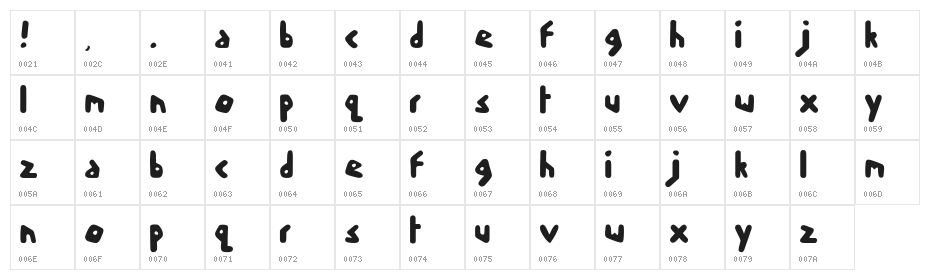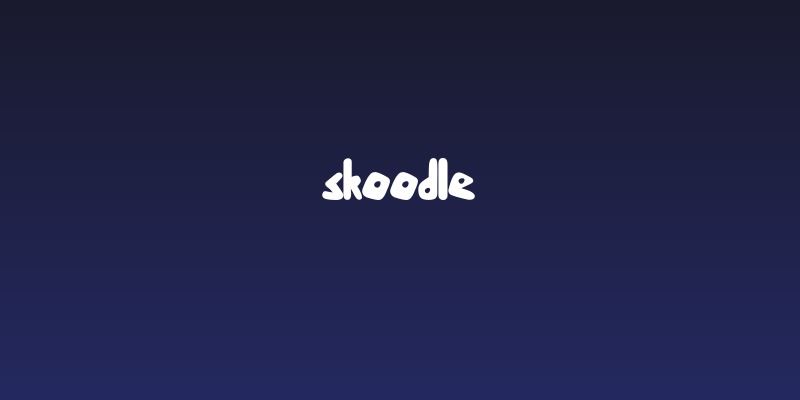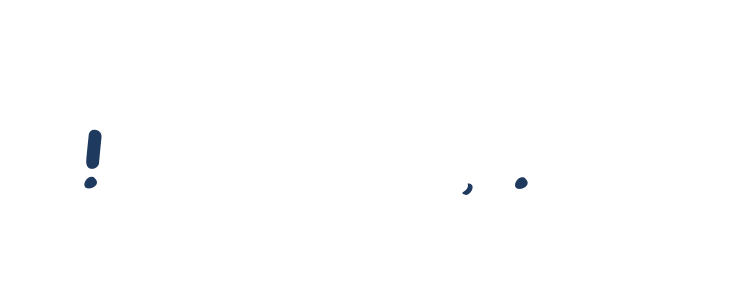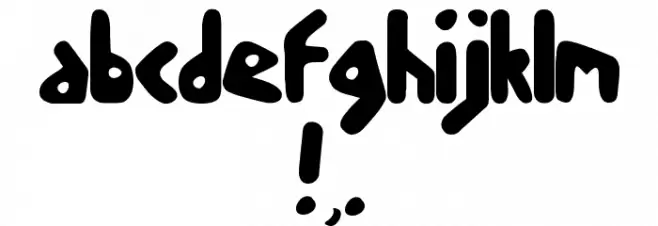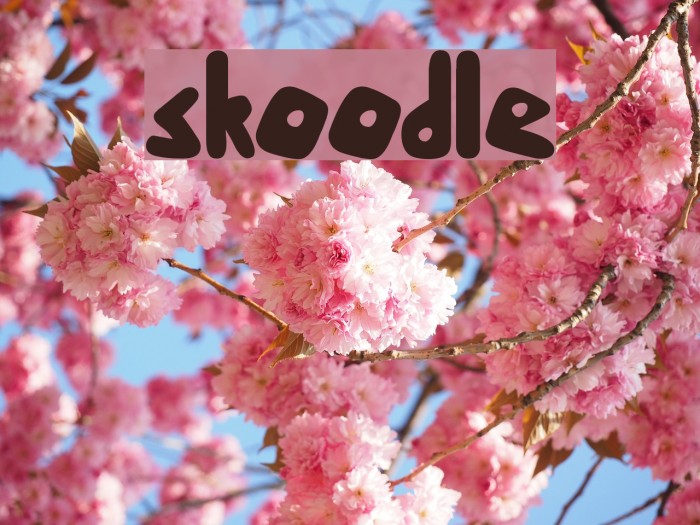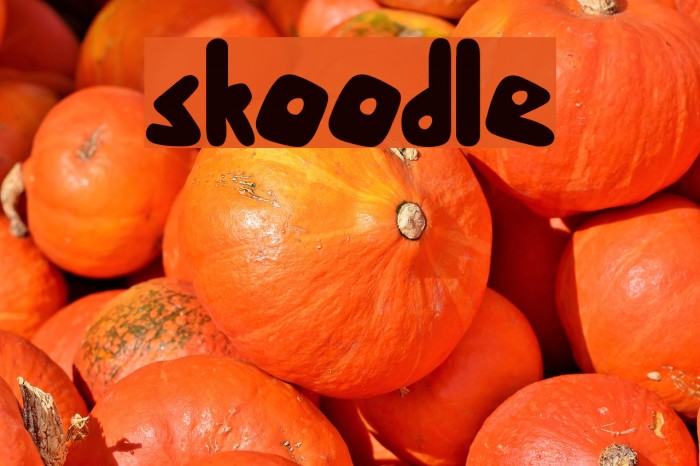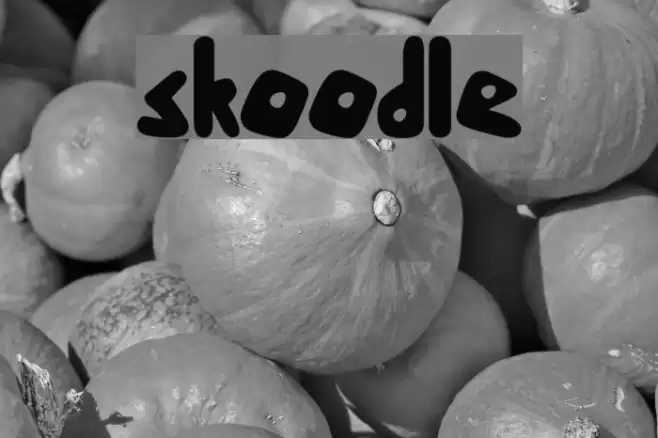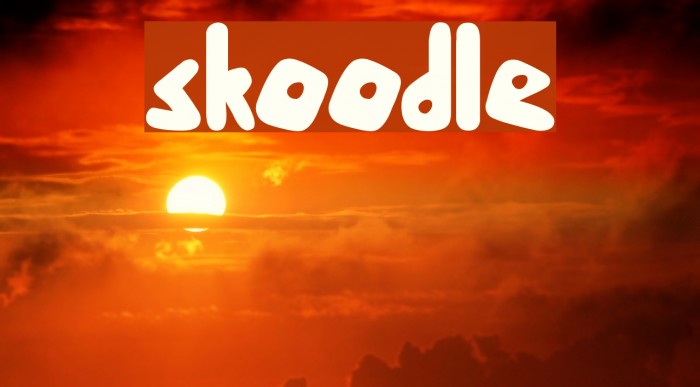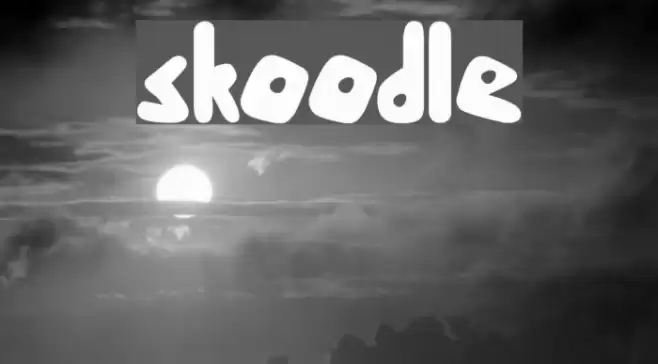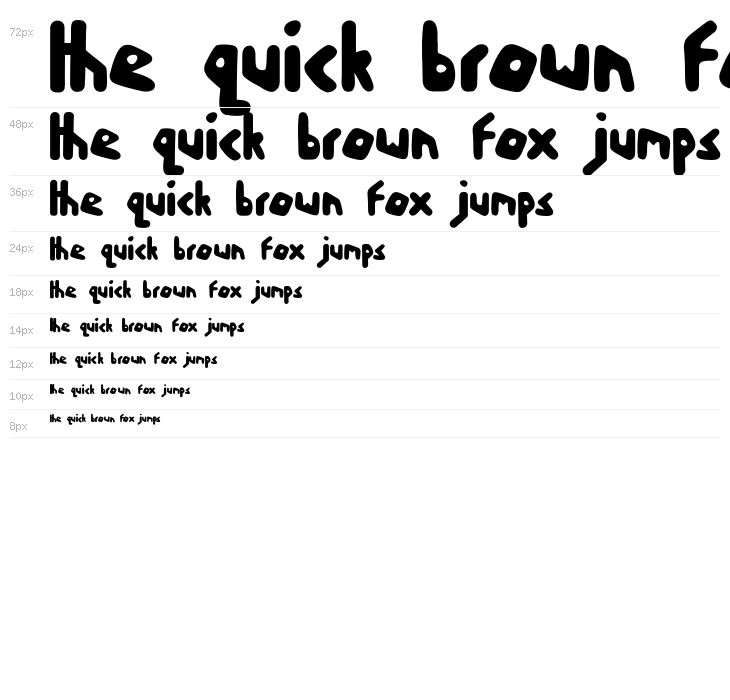
skoodle Font
skoodle Description
This font features a playful and bold design with rounded edges and a slightly irregular form, giving it a hand-drawn appearance. The characters are thick and substantial, creating a strong visual impact. The lowercase letters have a consistent height, and the overall style is informal and friendly. The font's unique character shapes and boldness make it suitable for creative and casual projects. Its whimsical nature is perfect for designs that aim to convey fun and approachability.
| Proposed Projects | Ideal for children's books, playful branding, posters, and creative social media graphics. |